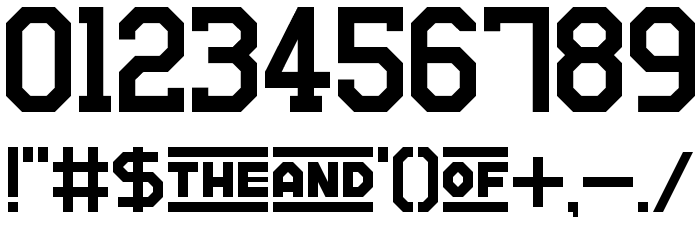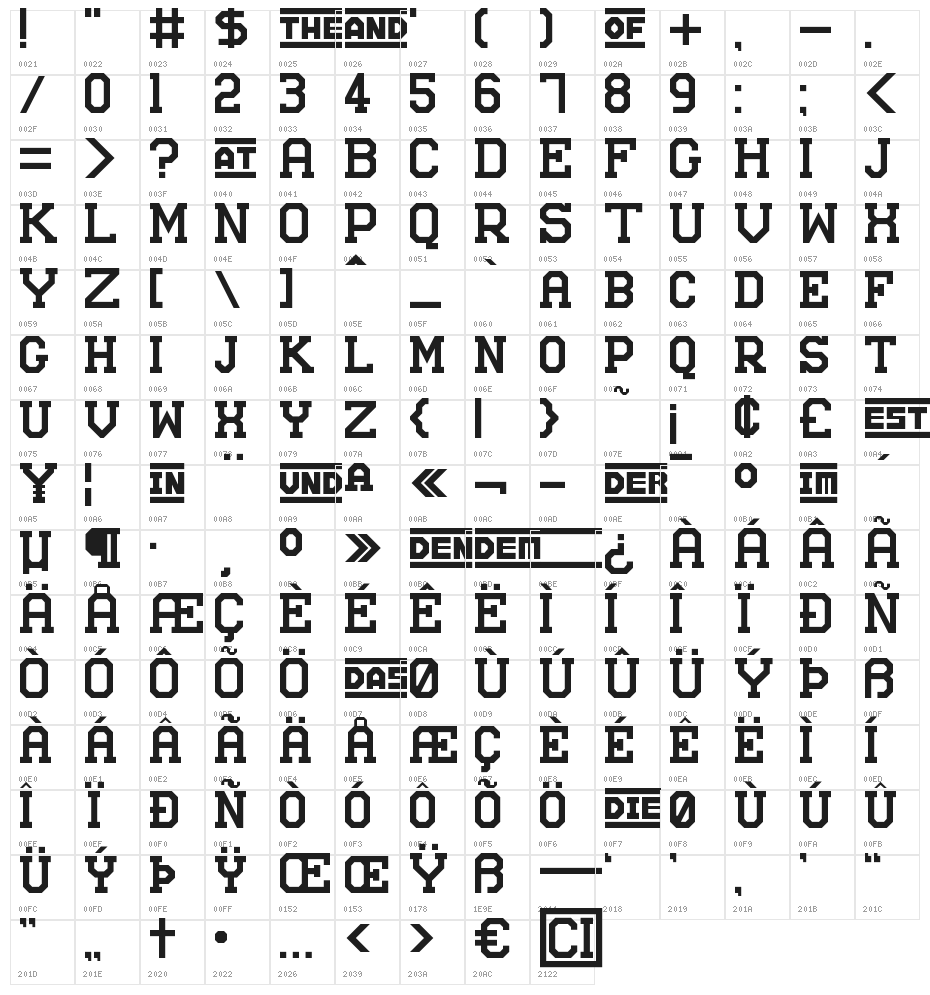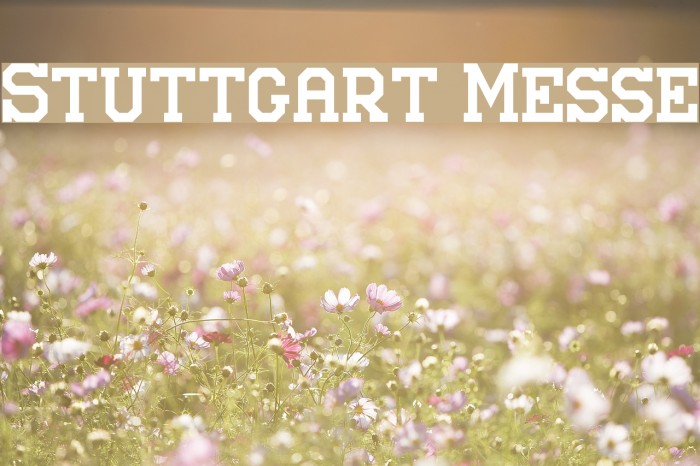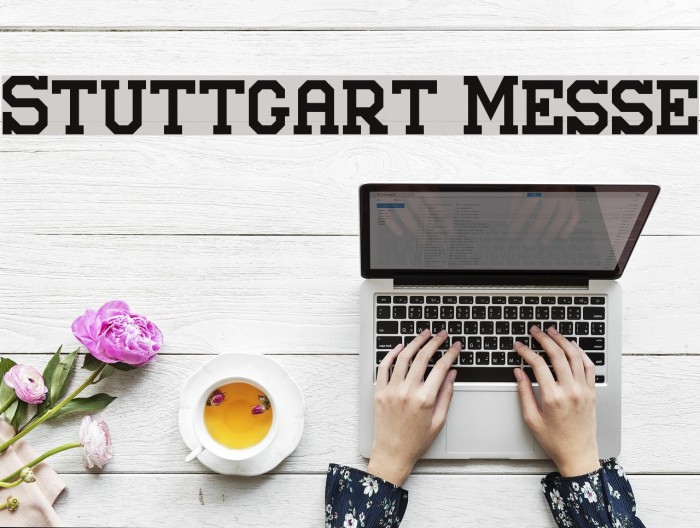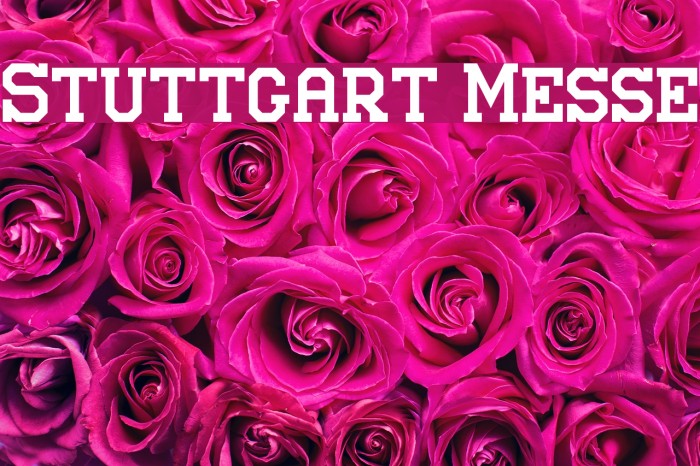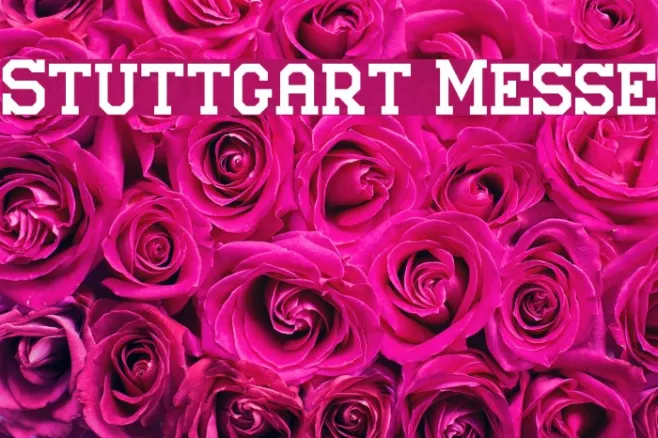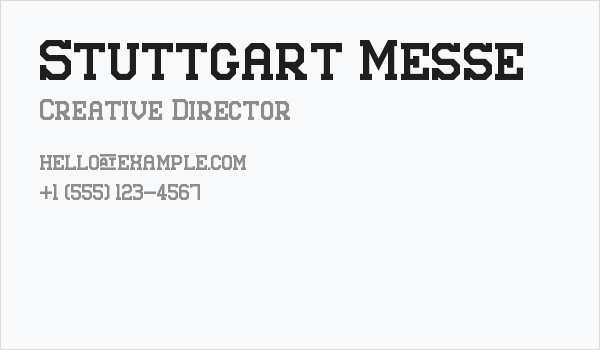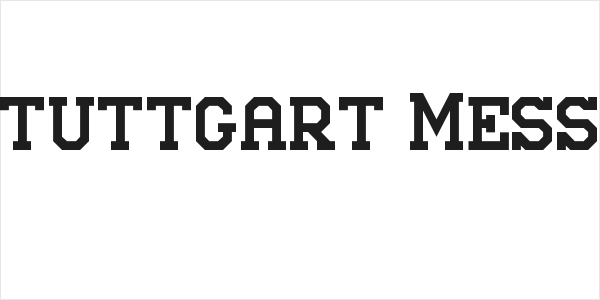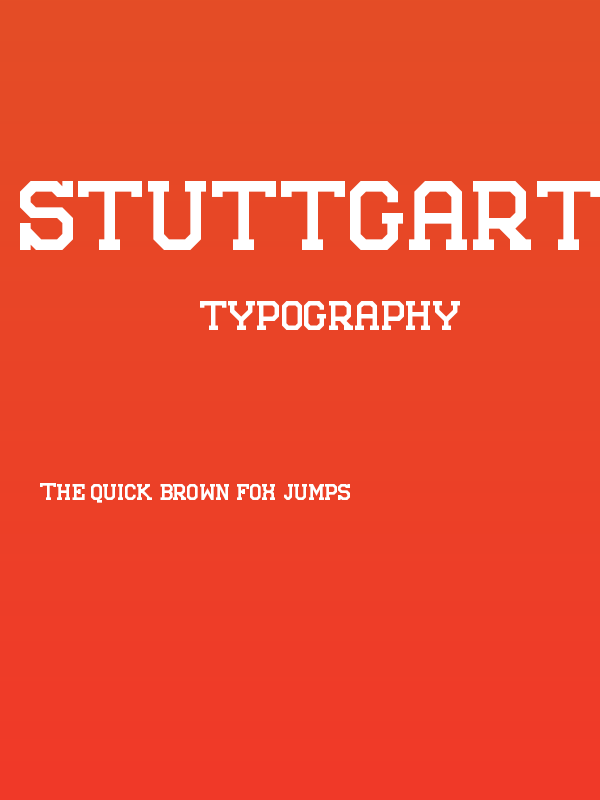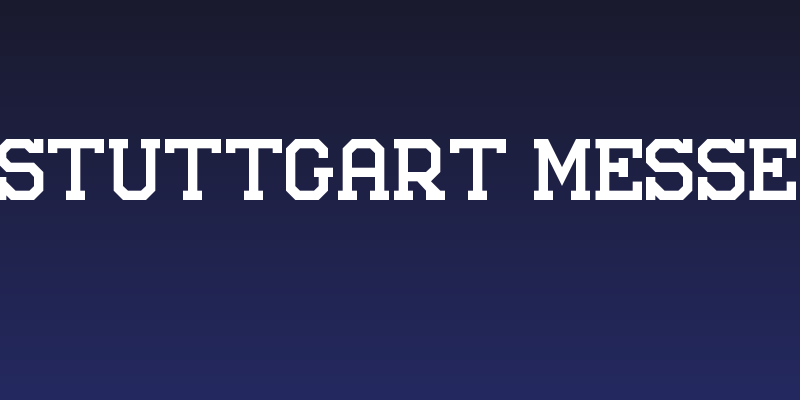
Stuttgart Messe Font
Stuttgart Messe Description
This font features a bold, geometric design with strong, angular lines and a distinct industrial feel. The characters are constructed with a consistent stroke width, giving them a uniform appearance. The uppercase letters are particularly striking, with sharp corners and a blocky aesthetic that conveys strength and stability. The numerals and special characters maintain this robust style, ensuring cohesion across all elements. The font's overall look is modern yet reminiscent of vintage industrial signage, making it versatile for various design applications.
| Overall Style | Industrial, Vintage |
| Proposed Projects | Ideal for branding, posters, and signage that require a strong, impactful presence. |